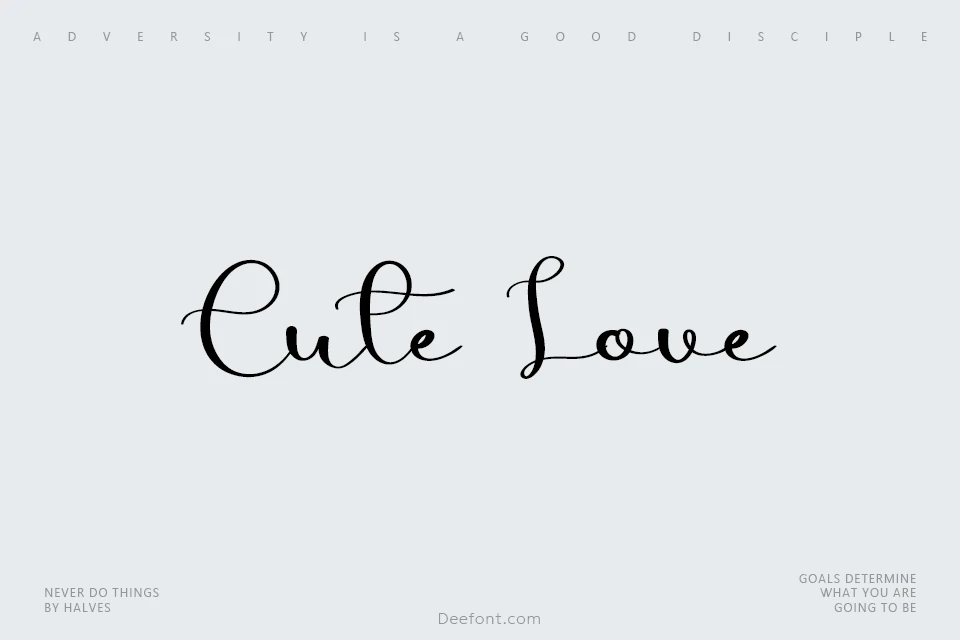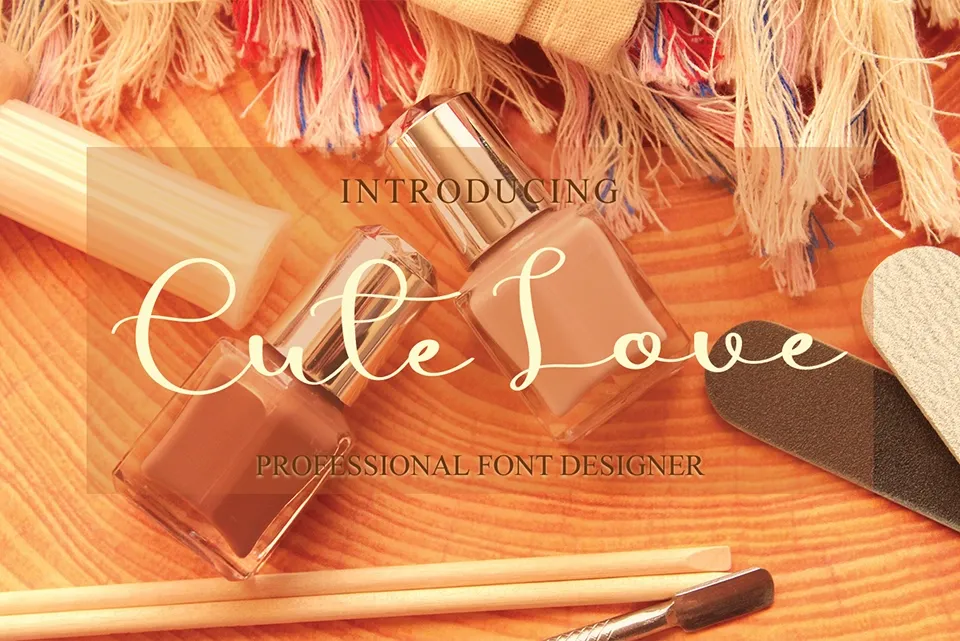
Cute Love Font
Cute Love Font is a charming and elegant script typeface designed to add a touch of romance and sophistication to your creative projects. Featuring smooth, flowing curves and delicate letterforms, this font captures the essence of handwritten beauty with a modern twist. Ideal for wedding invitations, branding, greeting cards, social media designs, and more, Cute Love Font brings warmth and personality to any text. Its graceful style ensures excellent readability while conveying an air of refinement and creativity. Whether for personal or professional use, this font is perfect for designs that require a soft, romantic, and timeless aesthetic.